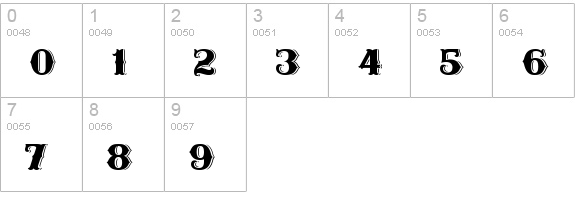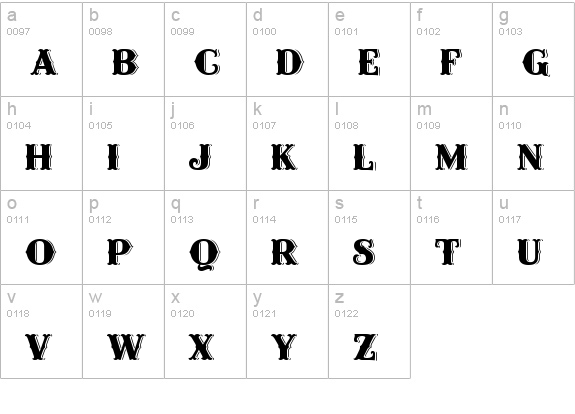
Miss Scarlett Font Details
Miss Scarlett font is a beautiful and elegant typeface that exudes charm and sophistication. With its graceful curves and delicate serifs, this font is perfect for adding a touch of class to any design project. Whether you're creating wedding invitations, branding materials, or editorial layouts, Miss Scarlett will elevate your work to the next level. The best part is that Miss Scarlett font is completely free to download at FontsMarket.com. You can easily access this stunning typeface and bring a touch of timeless elegance to your projects without spending a dime. Don't miss out on the opportunity to enhance your designs with the exquisite beauty of Miss Scarlett font. Download it today and let your creativity shine!